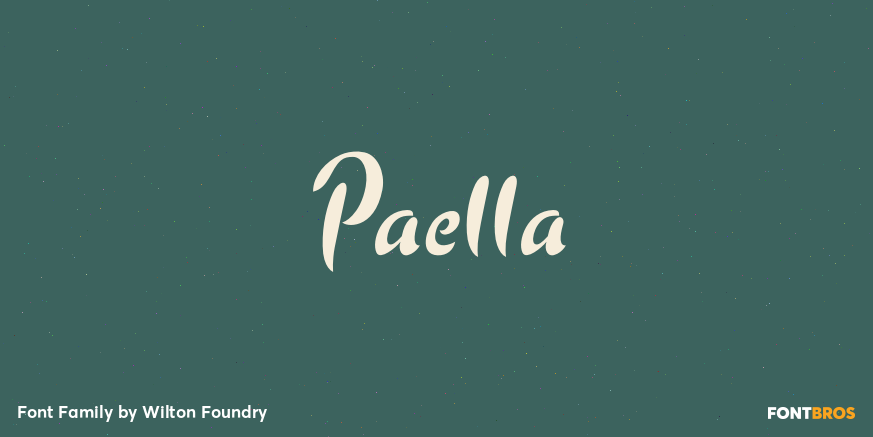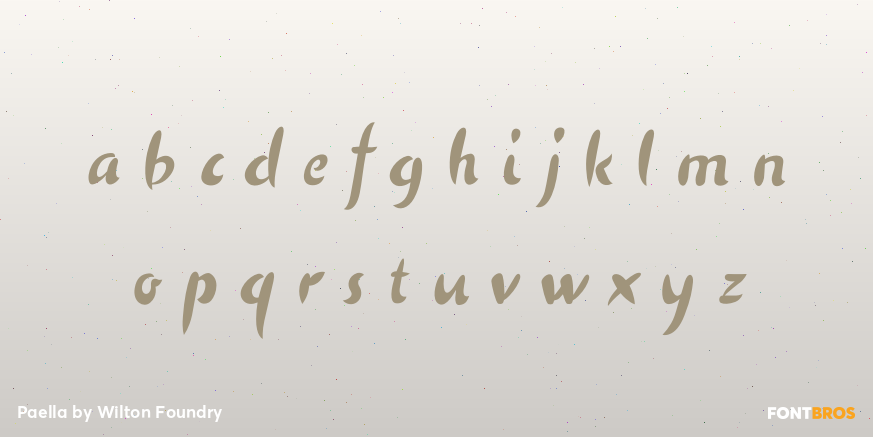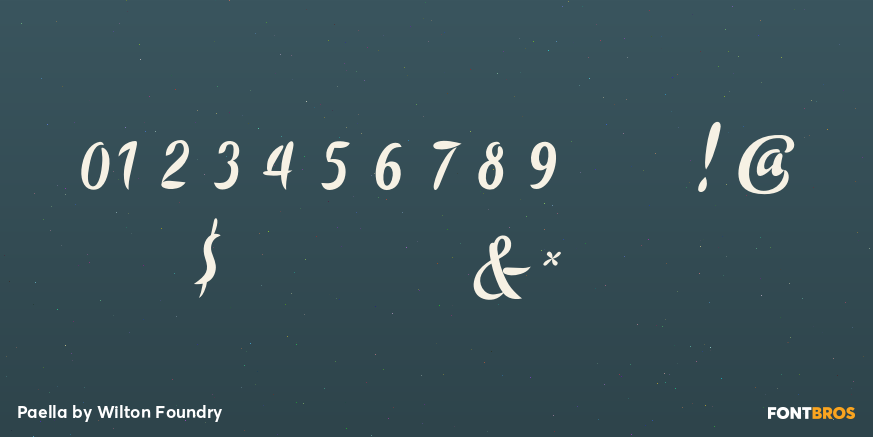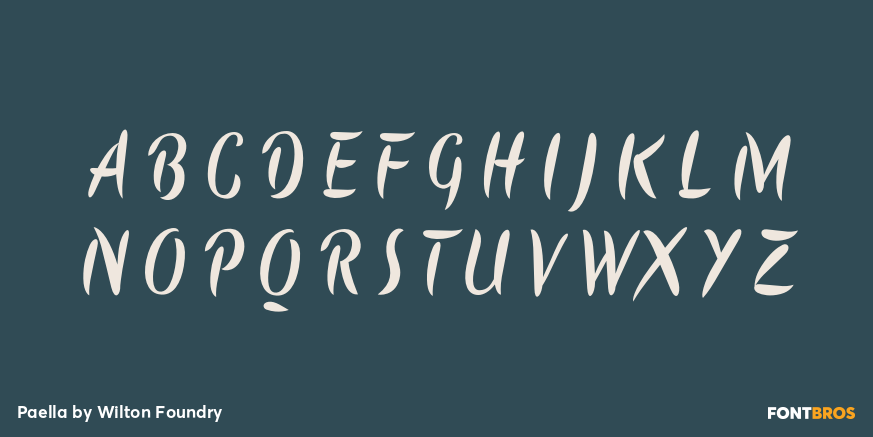
Paella
Font Family by Wilton Foundry
I finally designed this simplified brush style script after years of frustration trying to find a font that can fit a need for short descriptors, especially for packaging design. While this script does not replace custom script, it comes close!